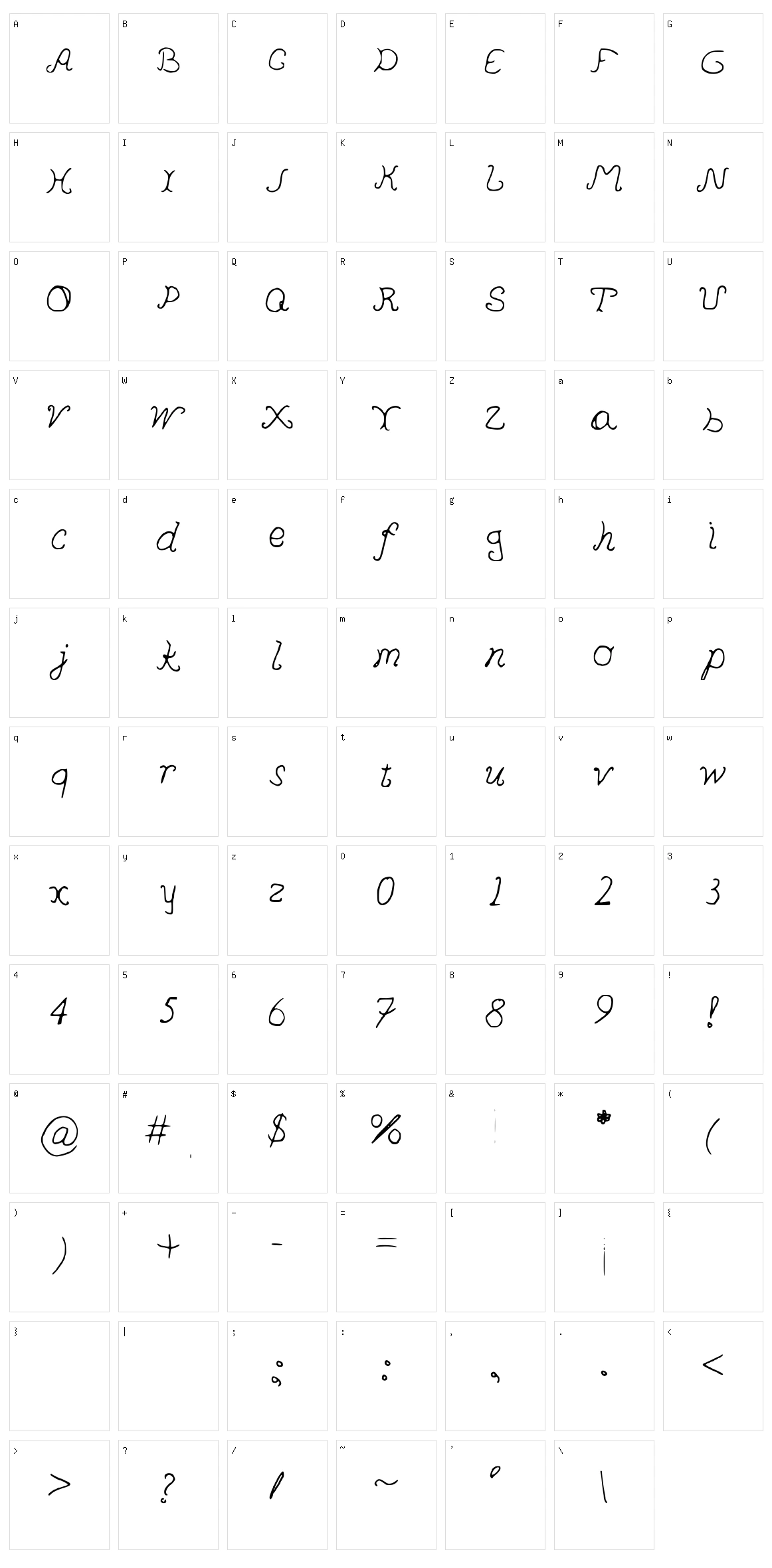
The free font Pedersen is carefully designed by Boksen, showcasing a thoughtful balance of creativity and usability and falls under the Script font style. When you download the ZIP file, it contains only 20.67 KB of font files, making it lightweight and quick to download. Please review the license details below to understand permitted usage and distribution rights. If license information is not available, we recommend using this font for personal projects only or contacting the author directly for commercial usage permissions.